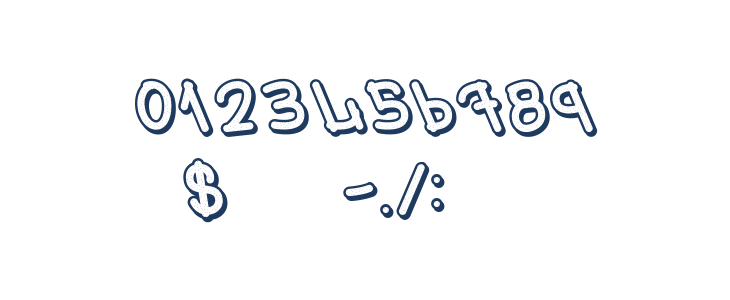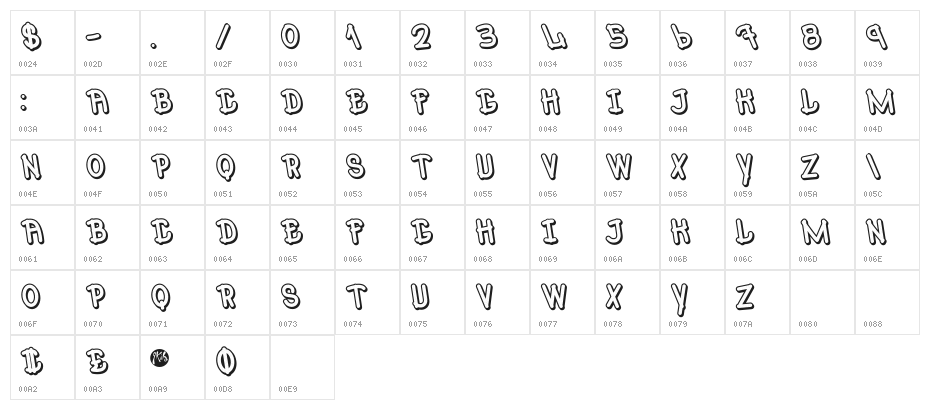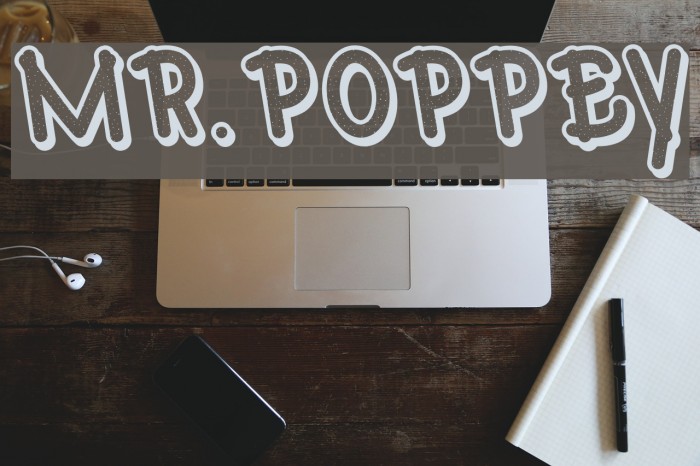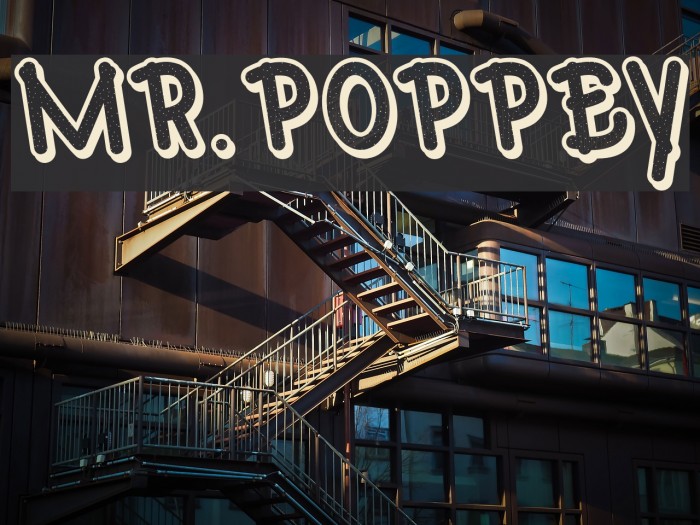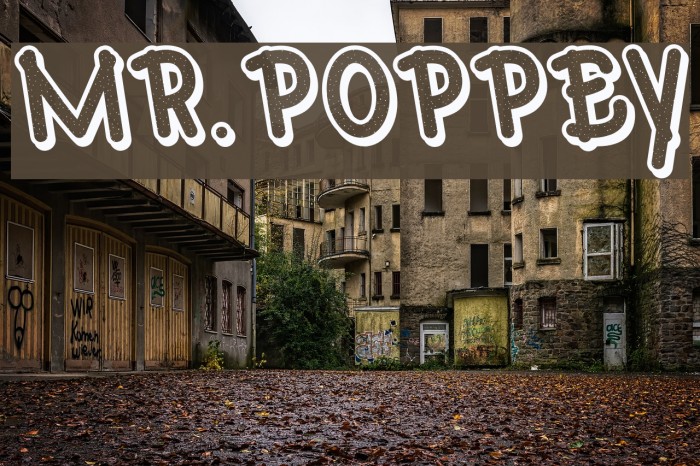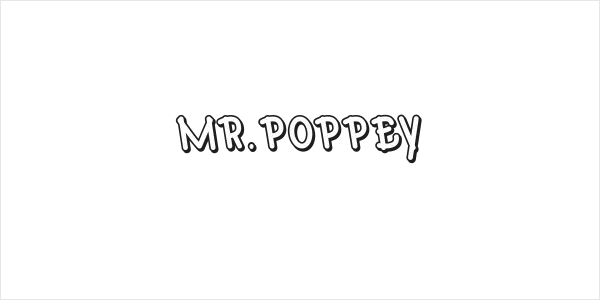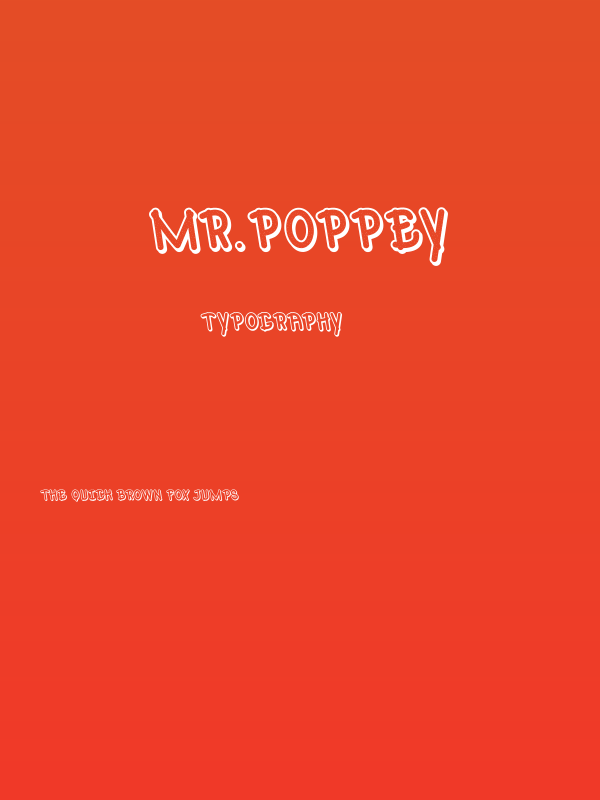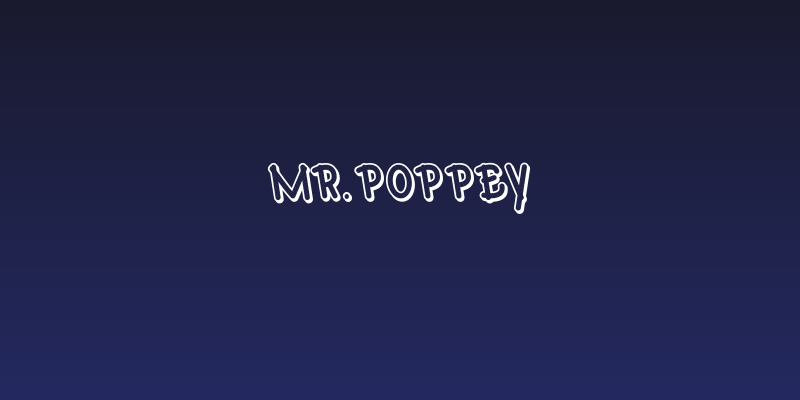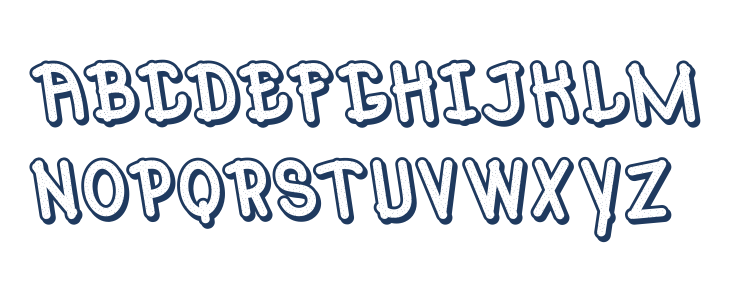
Mr.Poppey Font
Mr.Poppey Description
This playful and bold font features a cartoonish, hand-drawn style with thick outlines and a slightly irregular shape, giving it a whimsical and fun appearance. The characters are bold and rounded, with a consistent stroke width that adds to its friendly and approachable feel. The font includes both uppercase and lowercase letters, numbers, and a selection of special characters, all maintaining the same lively aesthetic. Its unique style makes it stand out, perfect for projects that require a touch of humor and creativity. The font's design is reminiscent of comic book lettering, making it ideal for informal and entertaining contexts.
| Overall Style | Playful, Cartoonish, Fun |
| Use Case | Headlines, Logos, Posters, Invitations |
| Proposed Projects | Ideal for children's books, comic strips, playful branding, party invitations, and any project that requires a fun and lively touch. |